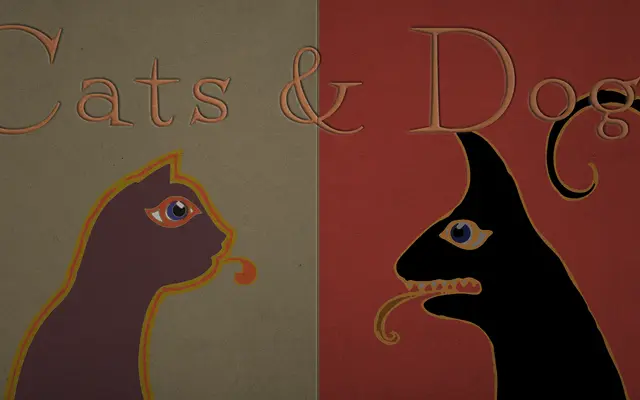
Perfect Magic specimen from Dharma Type
A display serif drawn from swing-era jazz album cover lettering, carrying a playful vintage rhythm suited to packaging and children's publishing.
Inspired by early 20th-century jazz album cover typography, Perfect Magic brings a loose, decorative quality to display work. The period-inflected letterforms sit comfortably in children's picture books, product packaging and any project where nostalgic warmth is the aim. A single weight limits its range, but within decorative display use the character is consistent and well-defined.
A display serif with decorative, period-flavoured letterforms drawn from swing-era jazz album cover typography, placing it firmly in the display/decorative serif category.